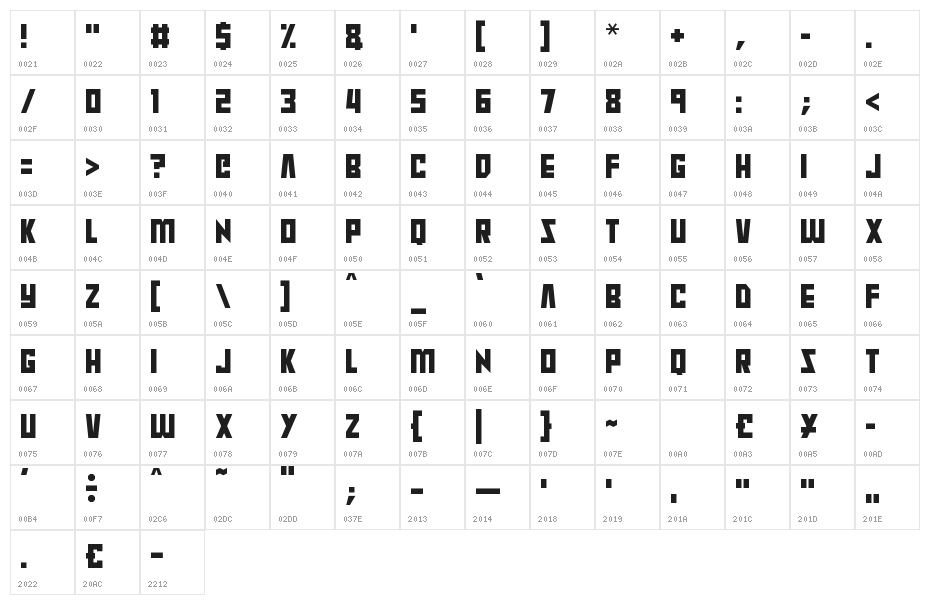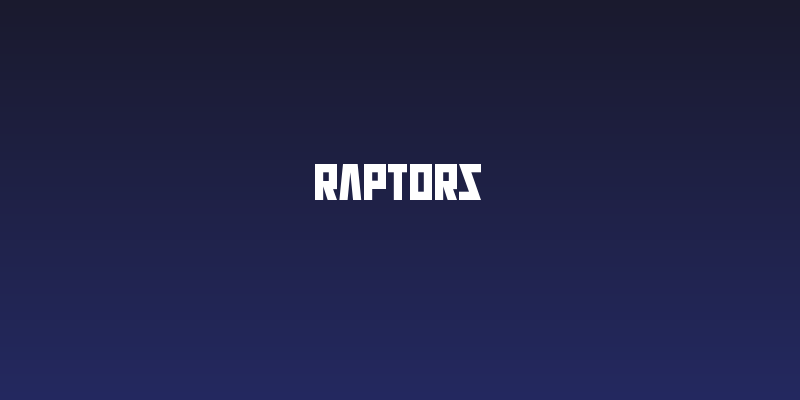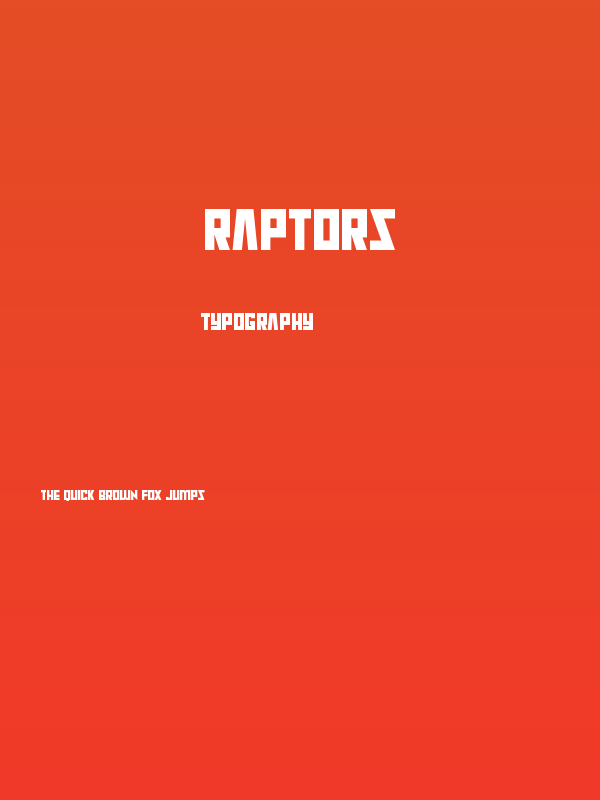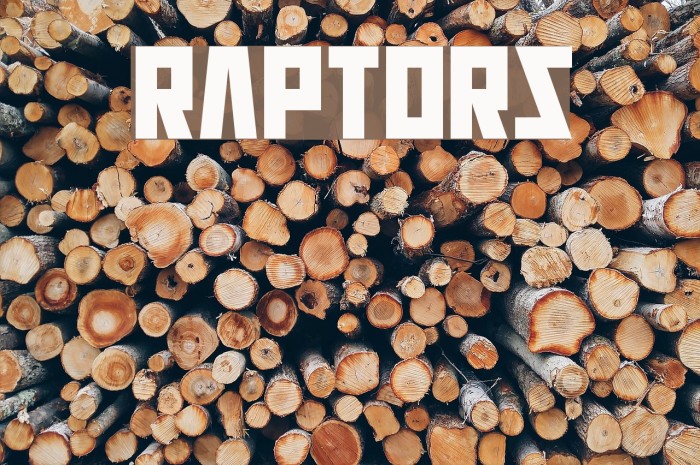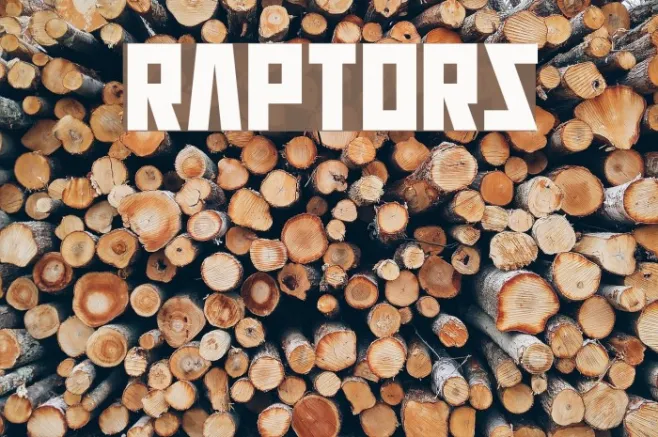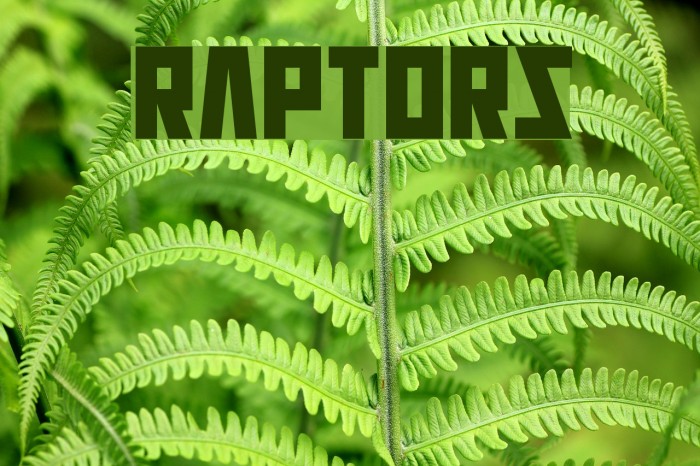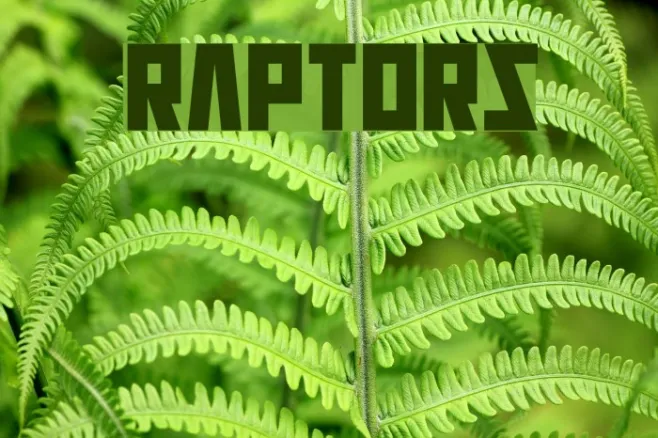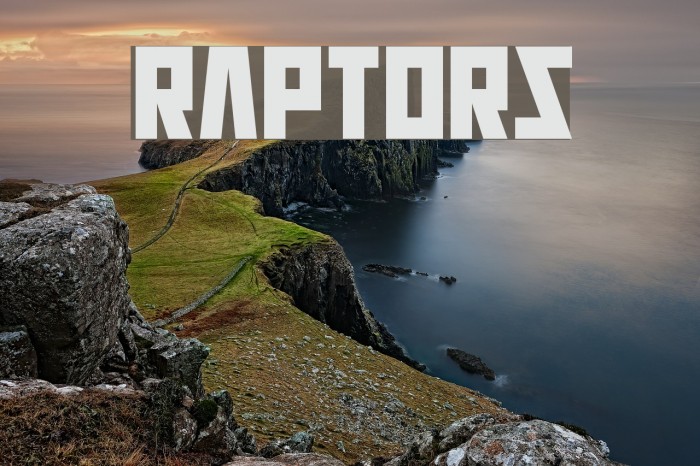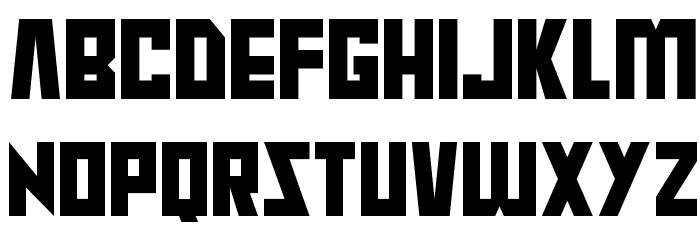
Raptors Font
This font features a bold and angular design, characterized by its sharp edges and geometric shapes. The uppercase letters are particularly striking, with a strong presence that commands attention. The numbers and special characters maintain the same bold aesthetic, ensuring consistency across all characters. This font is ideal for projects that require a modern and edgy look, making it suitable for sports branding, posters, and dynamic headlines. Its unique style sets it apart, offering a fresh take on traditional bold fonts.